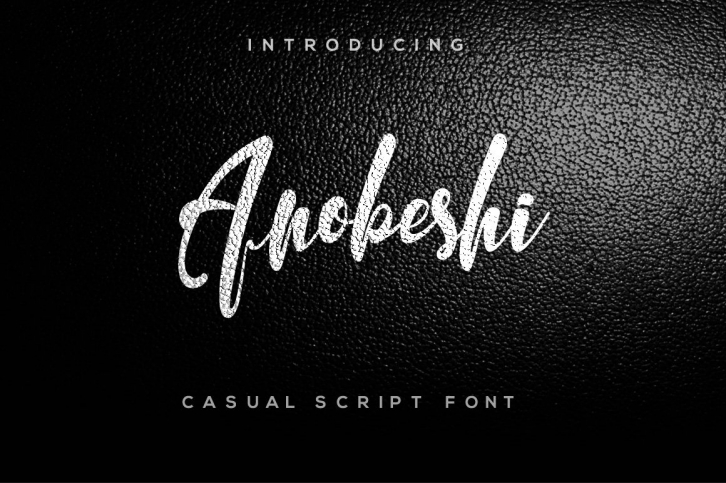
Anobeshi Font Download
Anobeshi is a trendy and unique font with an authentic style. It was designed by Leamsign and it's a great choice for creative people who need such a font. It was released on October 13, 2020 and the file size is 1.61 MB. Anobeshi will add an organic vibe to any design idea!